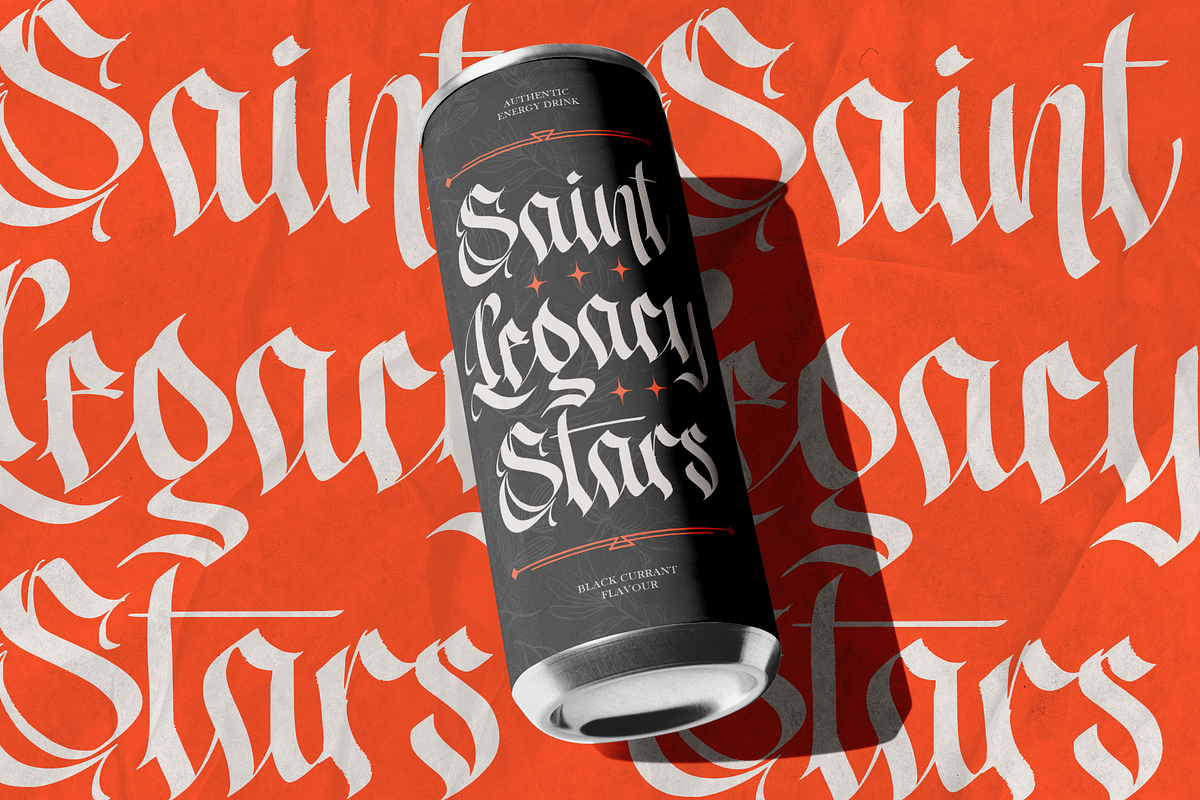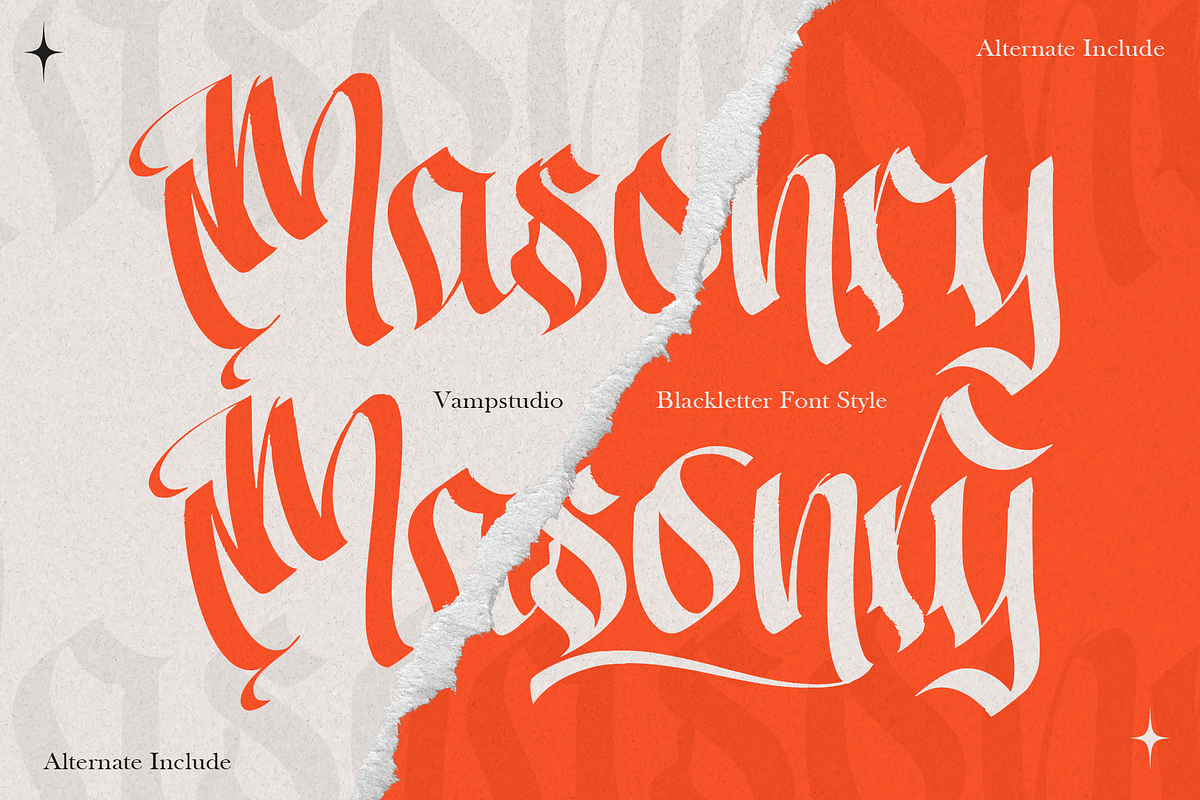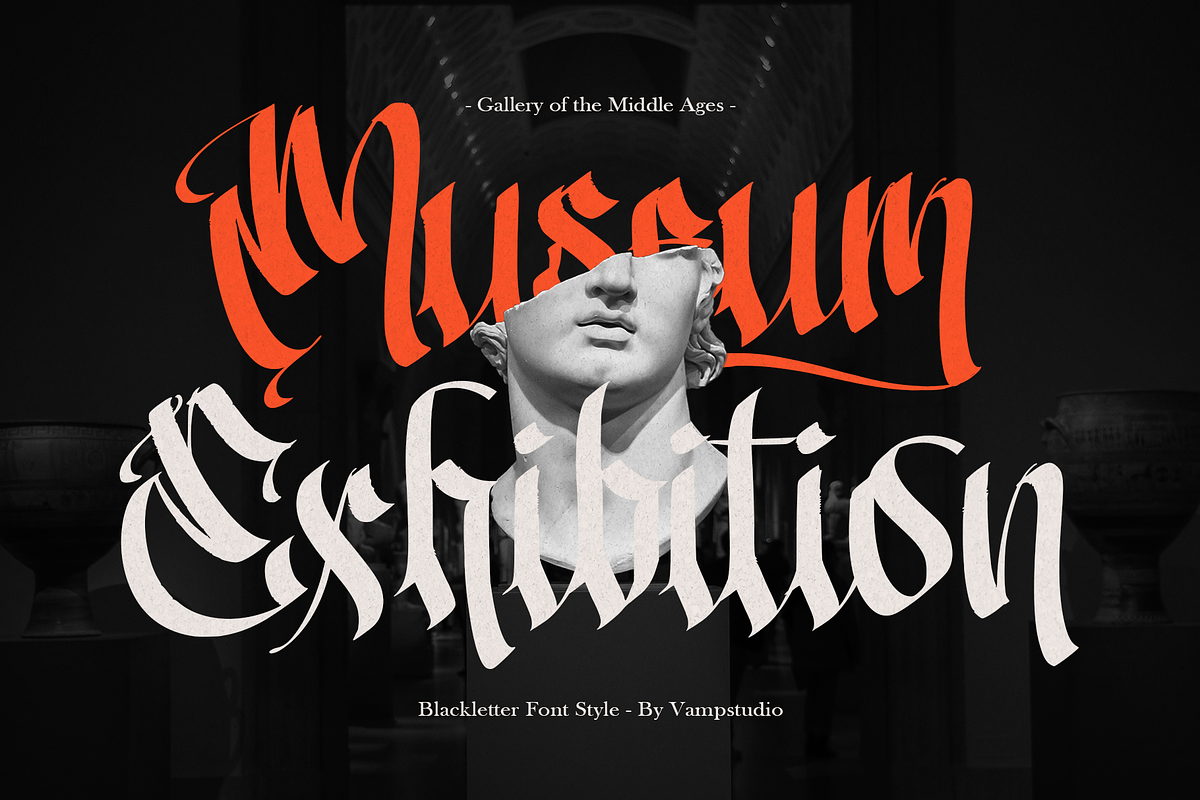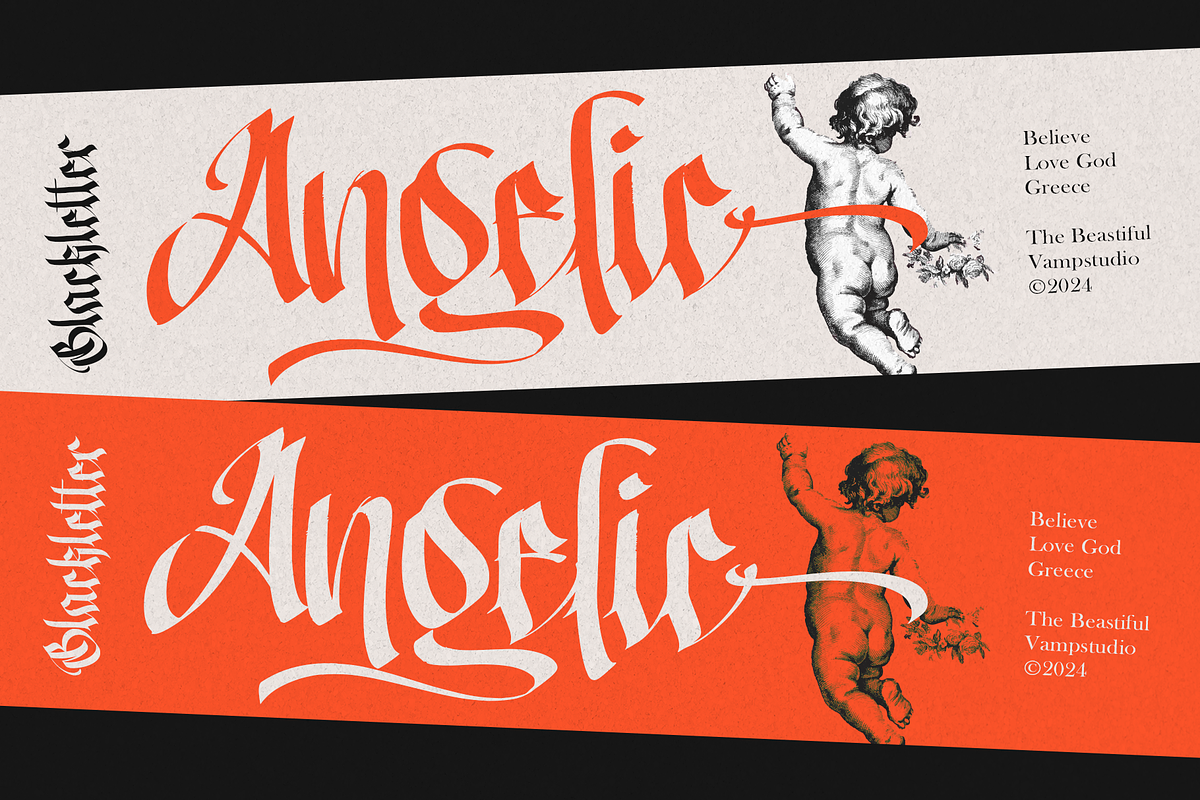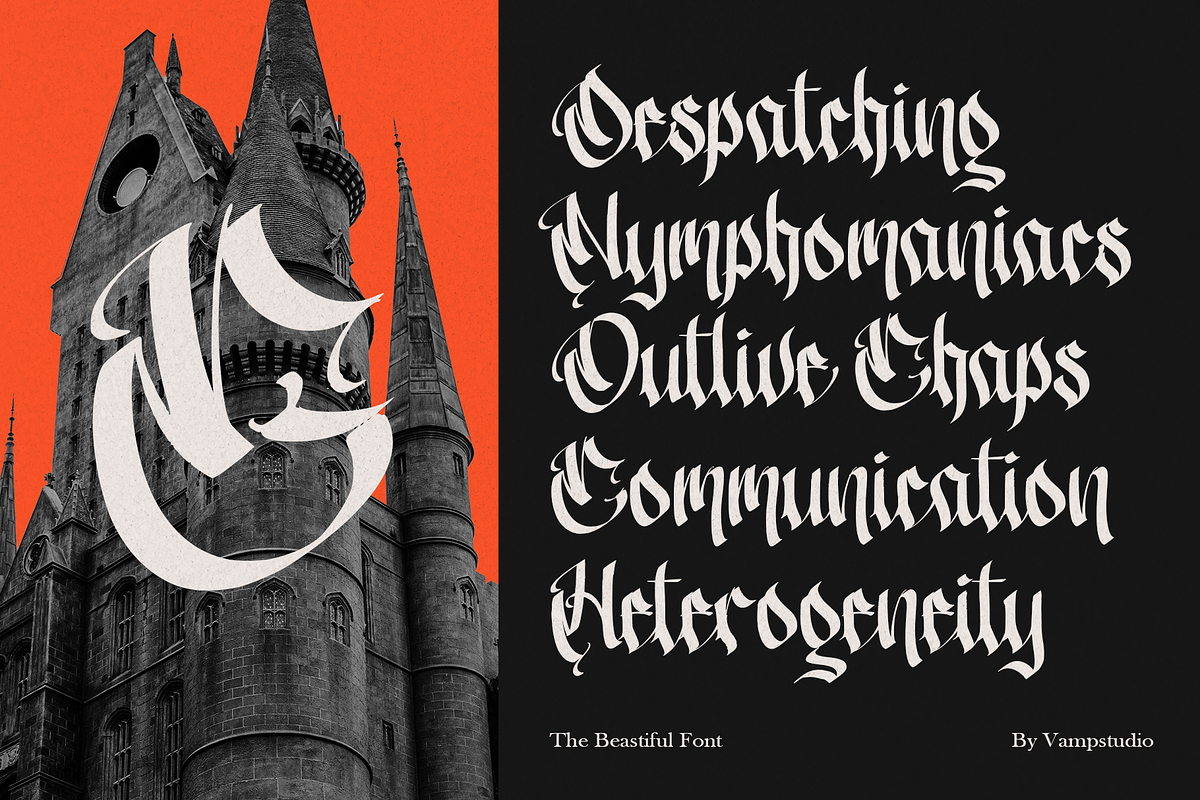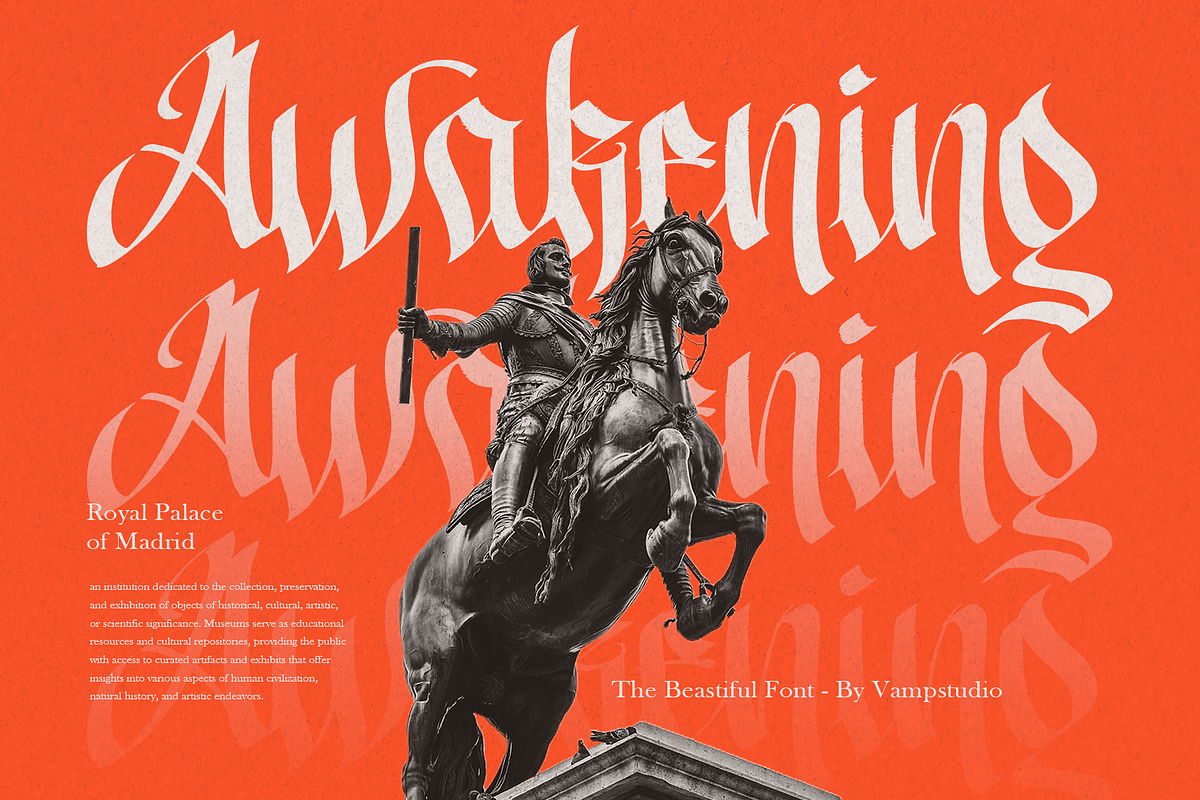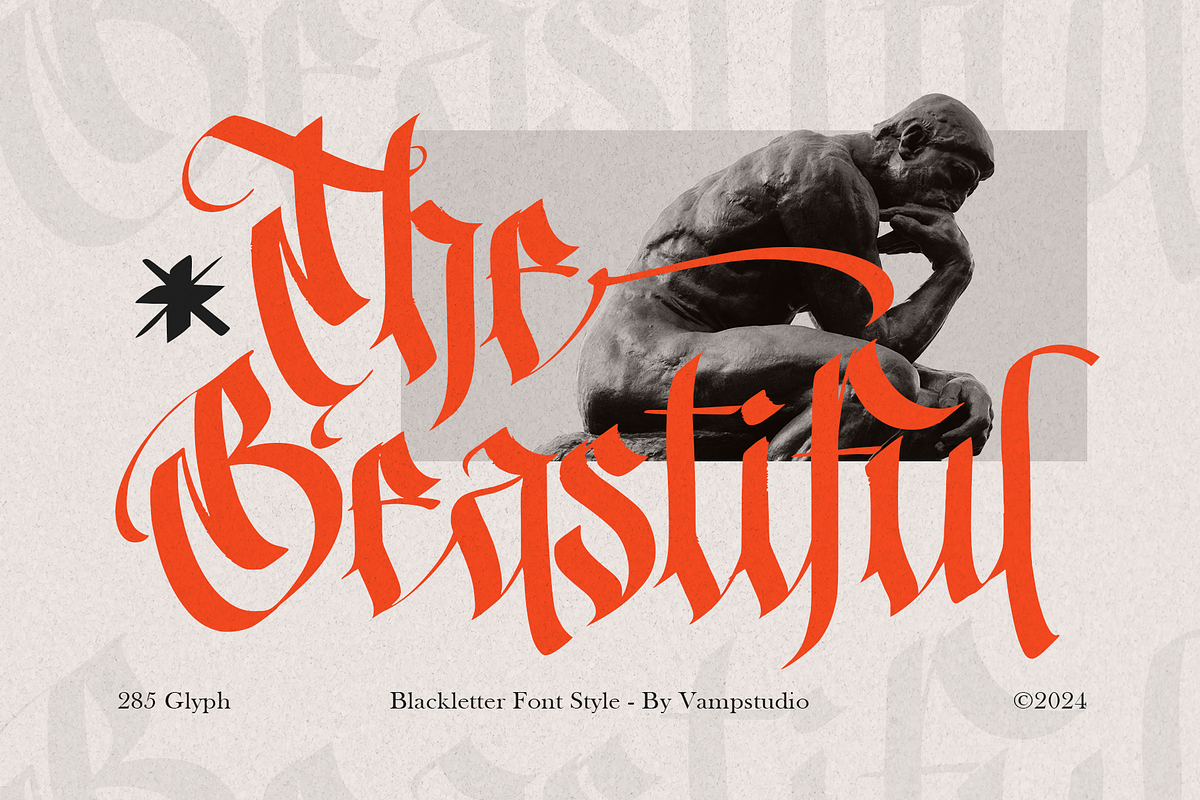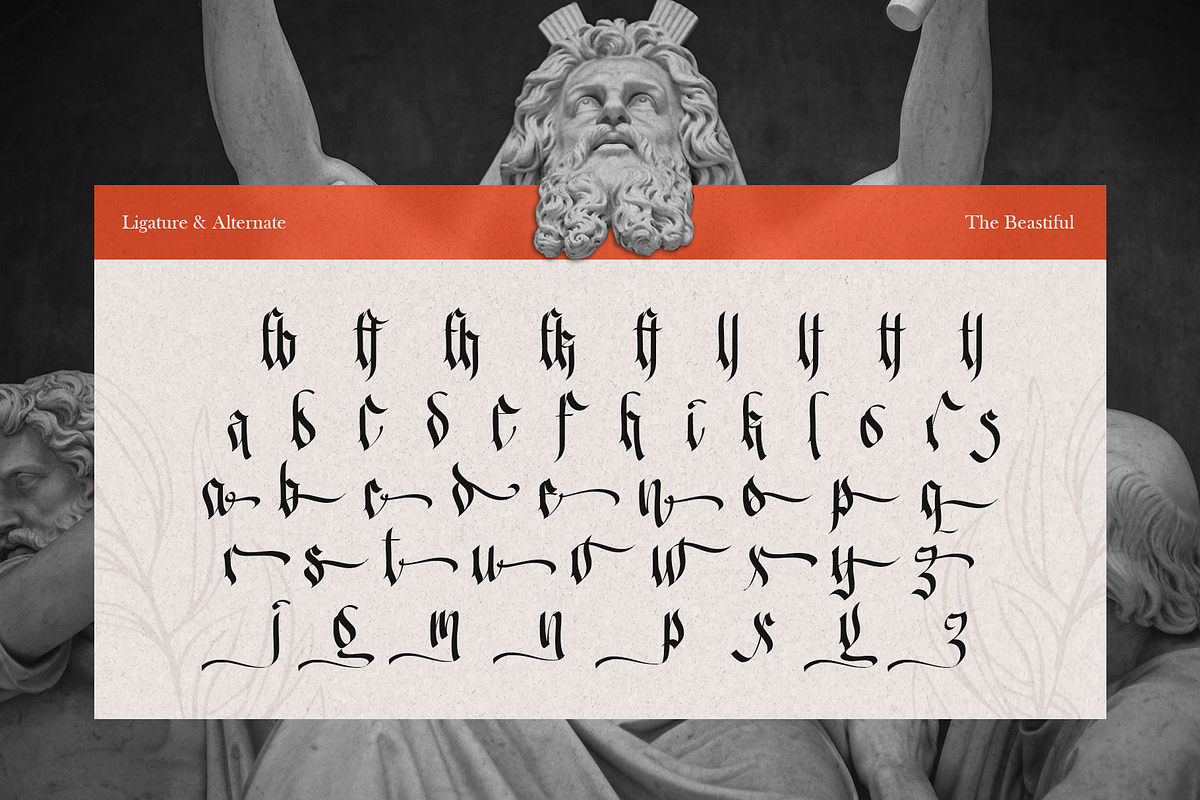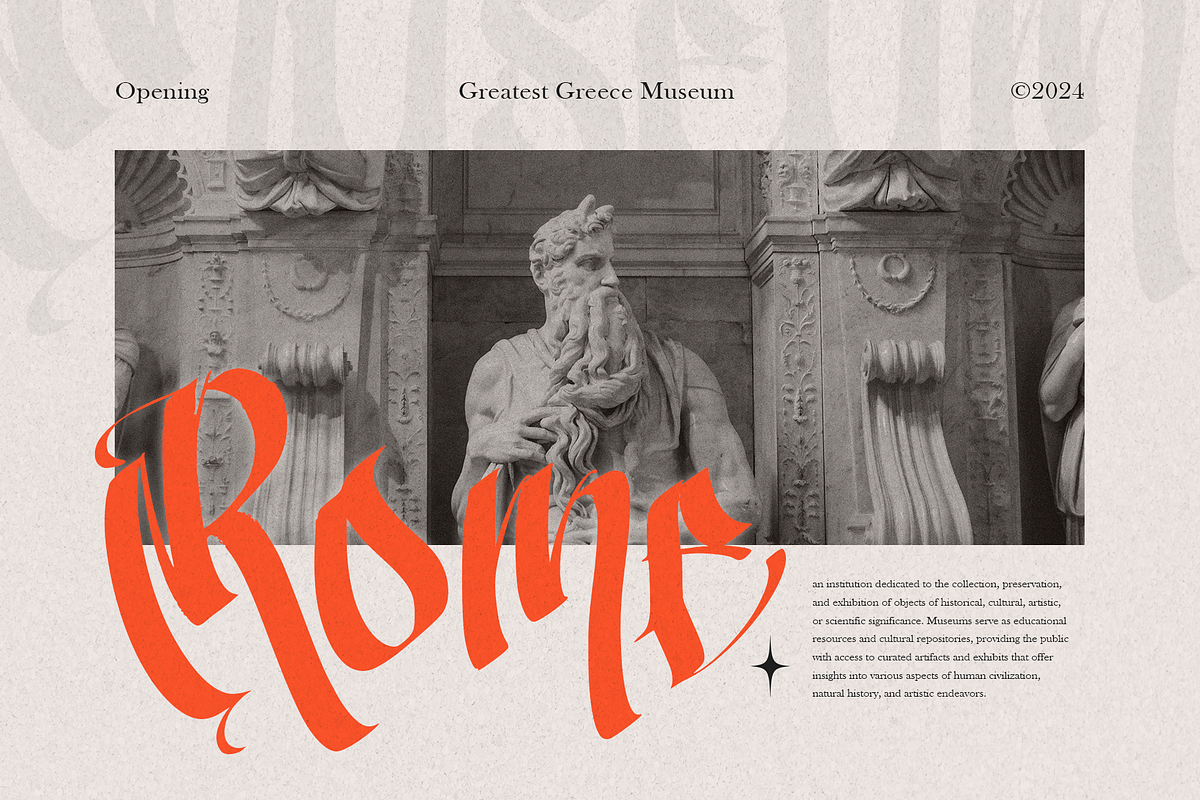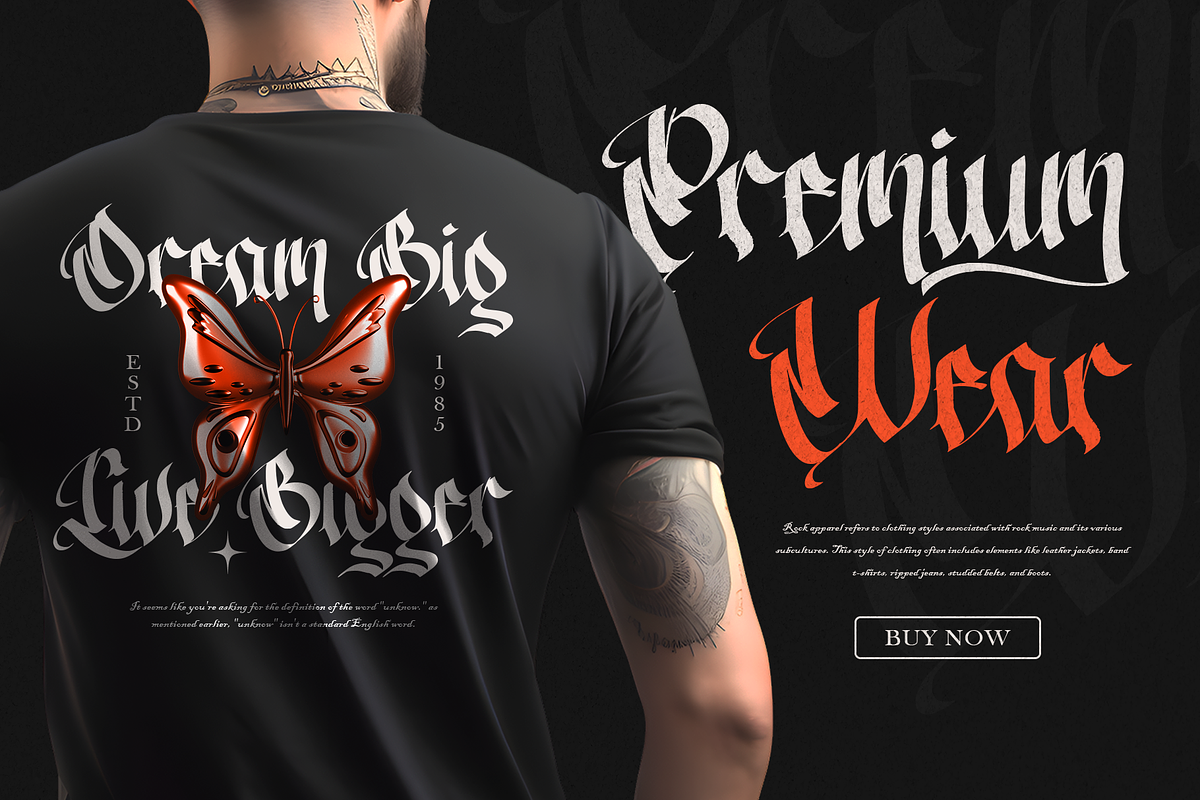
The Beastiful Modern Blackletter
Introducing The Beastiful, a modern blackletter font that reimagines classic Gothic script with a contemporary edge. This bold and striking typeface blends the intricate details of traditional blackletter with sleek, modern design elements, making it a perfect choice for projects that demand attention and sophistication.
The Beastiful is ideal for a variety of creative applications, including album covers, posters, branding, and high-impact headlines. Its sharp lines and dramatic curves exude power and elegance, making it a versatile font for both digital and print designs.
- Modern Gothic Fusion: A fresh take on blackletter, combining old-world charm with modern aesthetics.
- High Impact: Perfect for creating bold statements in titles, logos, and promotional materials.
- Complete Character Set: Includes uppercase, lowercase, numerals, punctuation, and special characters for versatile design possibilities.
- Versatile Use: Ideal for fashion, music, lifestyle branding, and more.
Elevate your designs with the fierce and beautiful presence of The Beastiful—a font that’s as powerful as it is elegant.